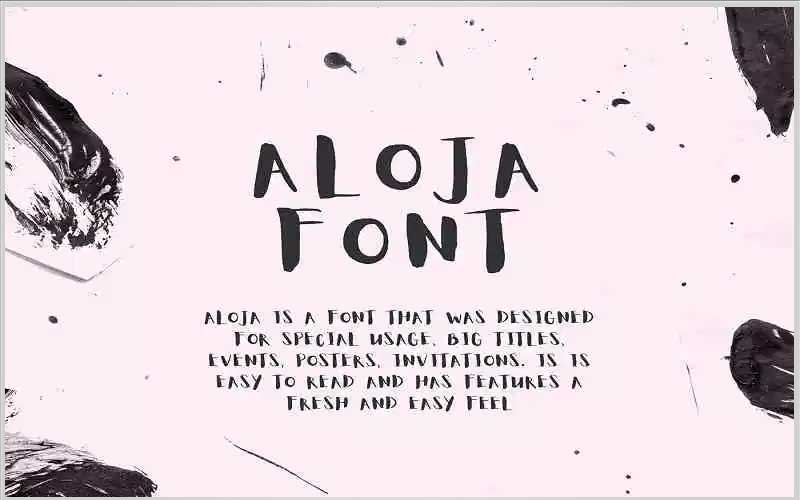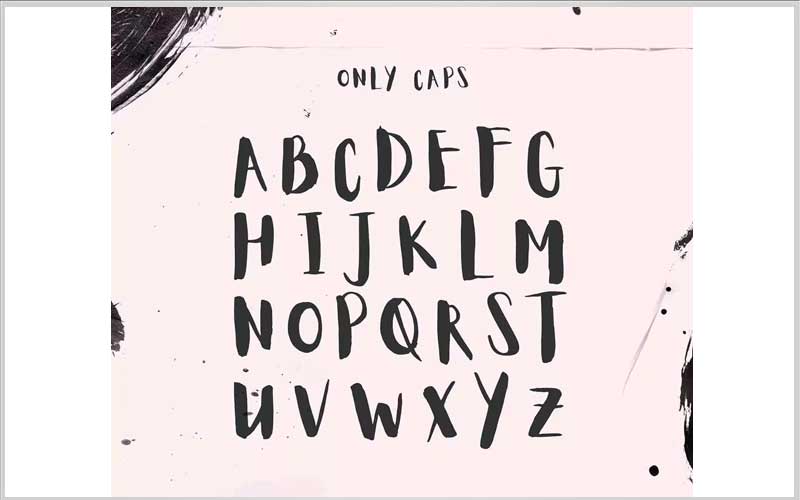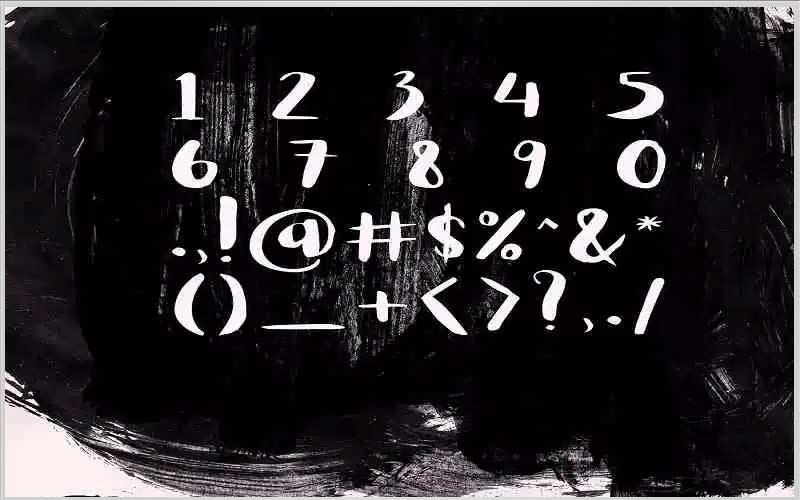
Aloja Brush Handwritten Font Free Download is an ideal font style for quantities of designs. It helps to enrich your texts.
Ieva Mezule is the one who drew and crafted the font. Then, Krisjanis Mezulis is the one who put it together. With this combination, the font was well made to fit lots of designs. The strokes are big, bold, bouncy, and full of energy.
The strokes of the font also make it easy to read as well as bring a fresh feel. Although it features only uppercase letters, it can still be used for many designs such as product packaging, branding material, advertising, etc.
Aloja Handwritten Font Free Download also has numbers and some special symbols. Hence, it is still a good font to try. You can easily use it for personal and commercial projects.